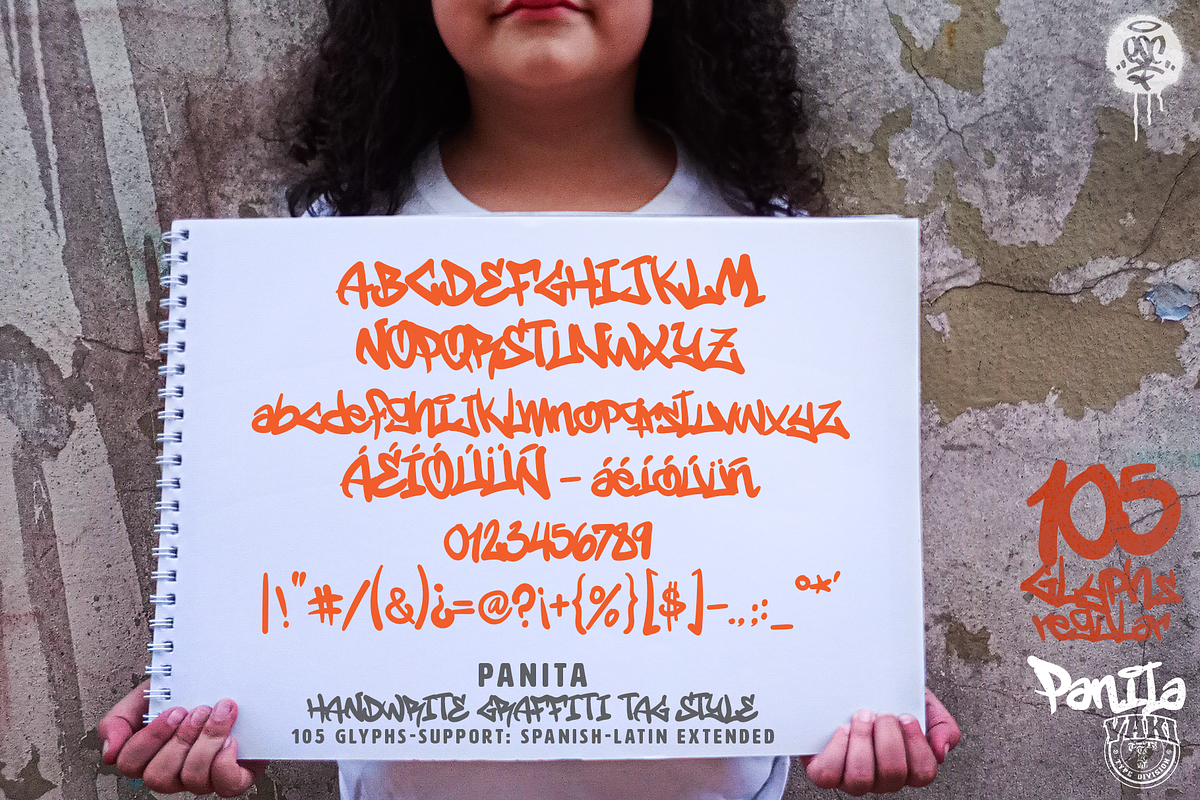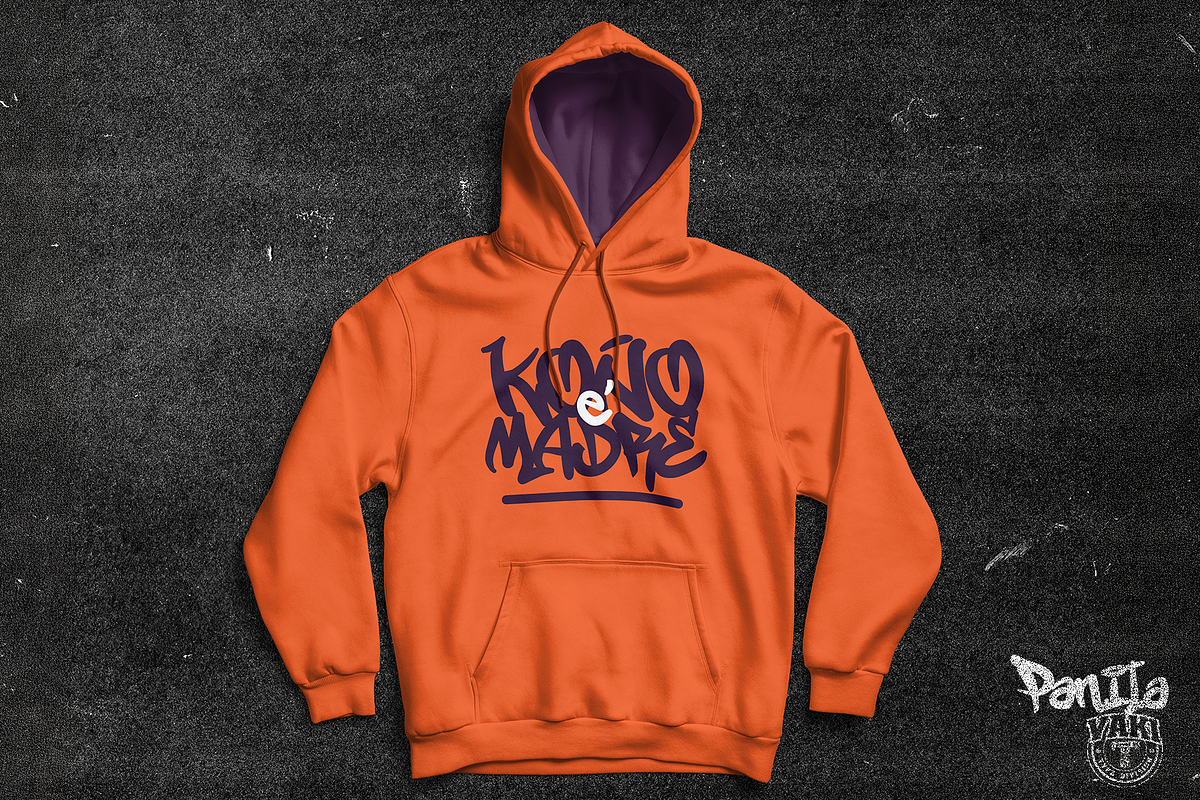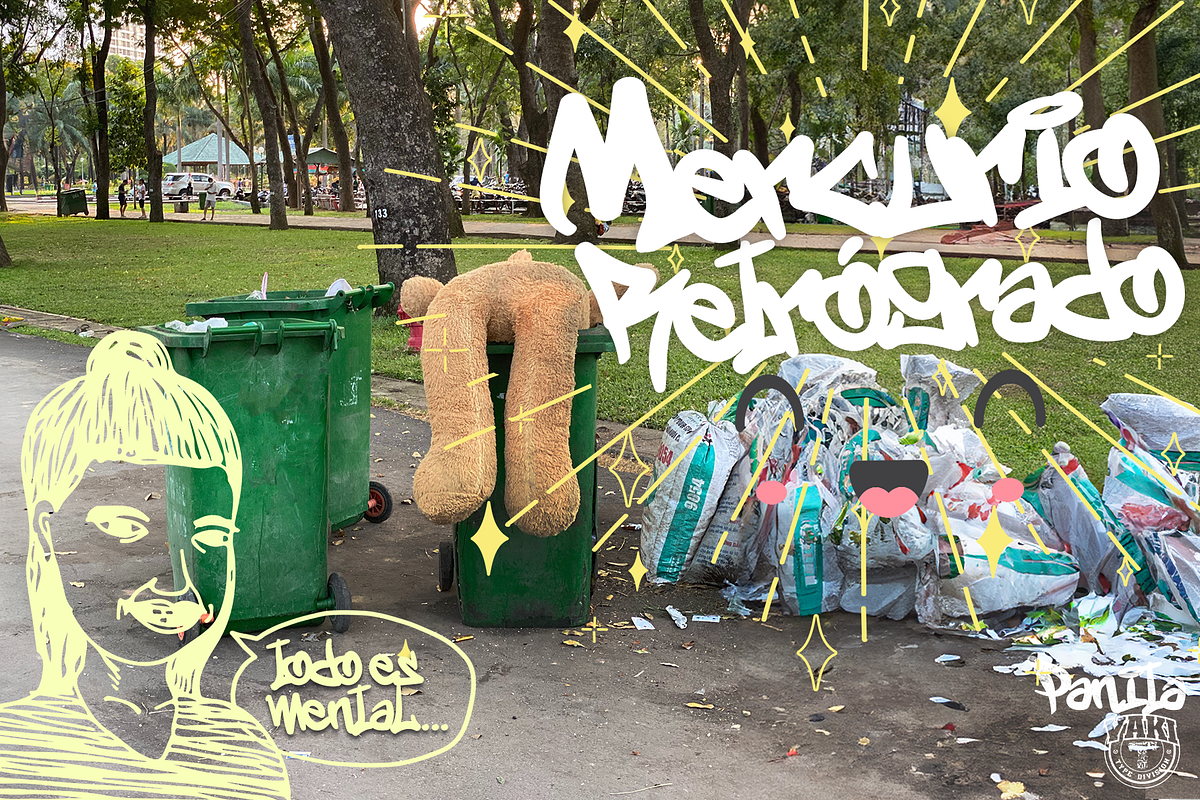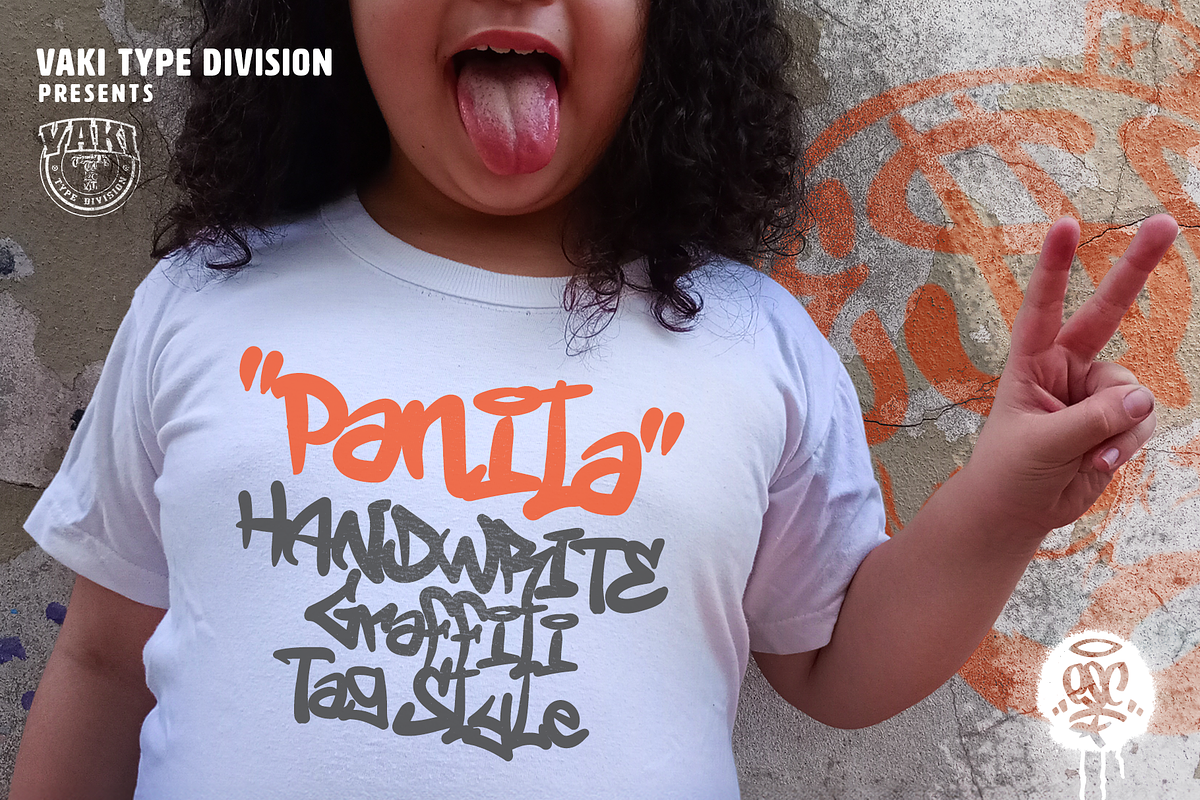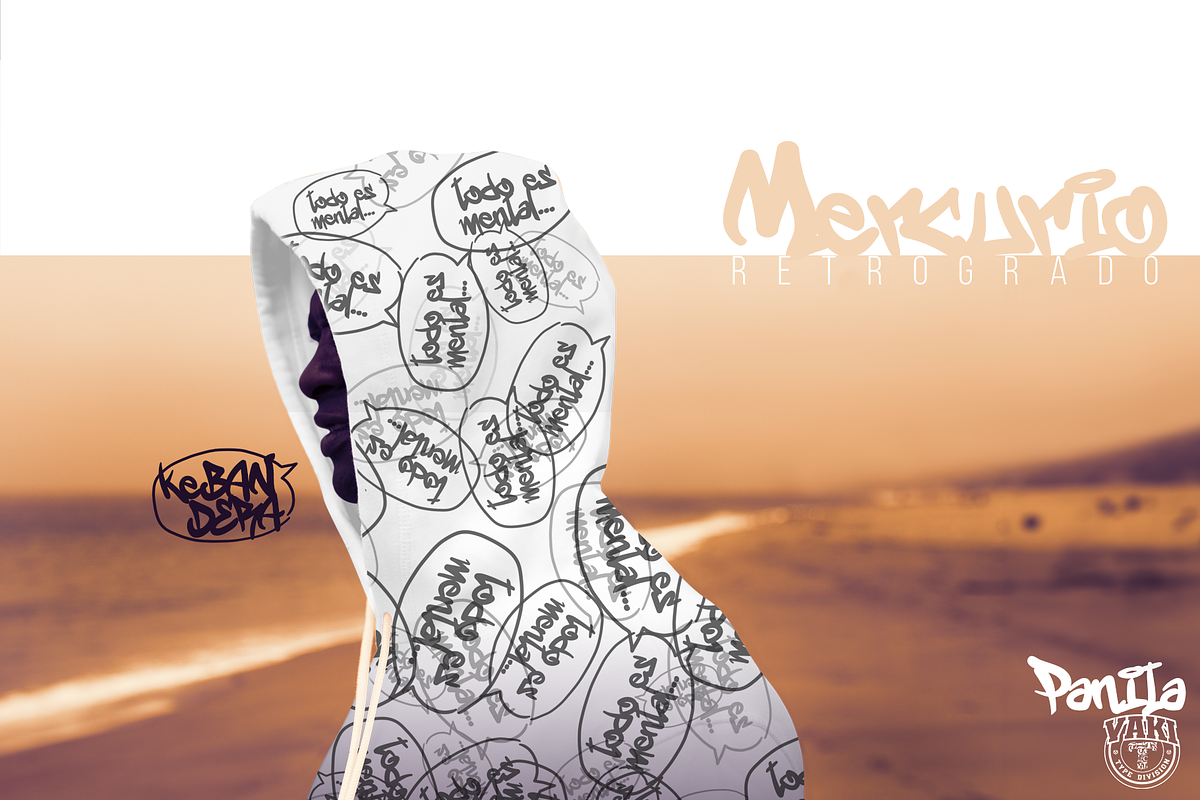
PANITA
PANITA - VAKI TYPE DIVISION
In Venezuela, pana means friend. Panita means something more a closer bond, the one who's really there. A word that carries warmth you can feel.
PANITA is the very first original typeface created by VAKI TYPE DIVISION. Where it all began, a legible graffiti tag-style font with real street character and a personality of its own, the starting point of an author type design journey.
Designed years ago and now fully revised: new kerning, new glyphs, refined technical performance. Same soul, sharper execution.
The first of many.
Style: Handwrite graffiti tag
Glyphs: 105 · Uppercase and Lowercase
Support: Spanish-Latin Extended
Recommended use: Perfect for urban identity, streetwear, editorial design, and any project that needs a typographic voice straight from the street.
PANITA, from ESC, east side conexion / conexion del este and made by VAKI TYPE DIVISION.